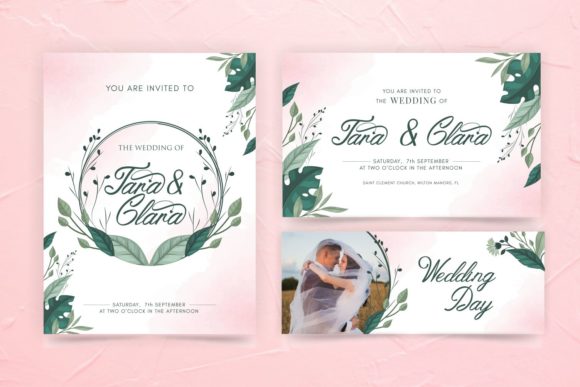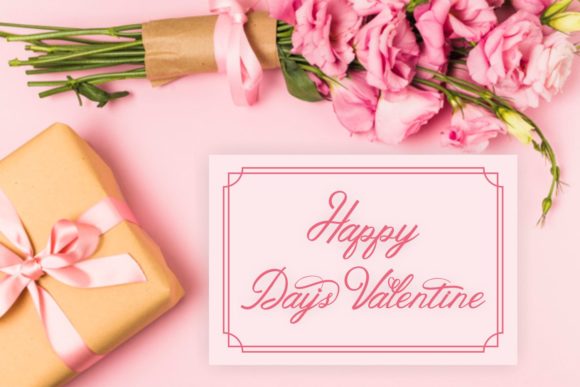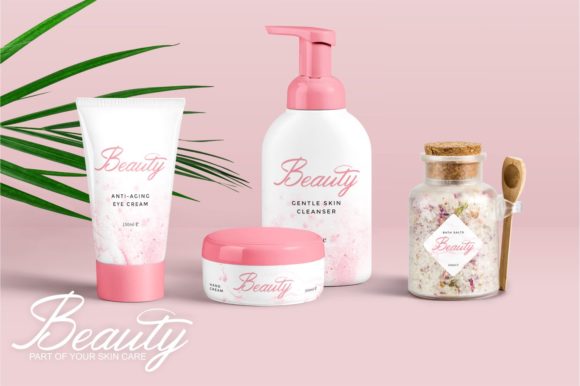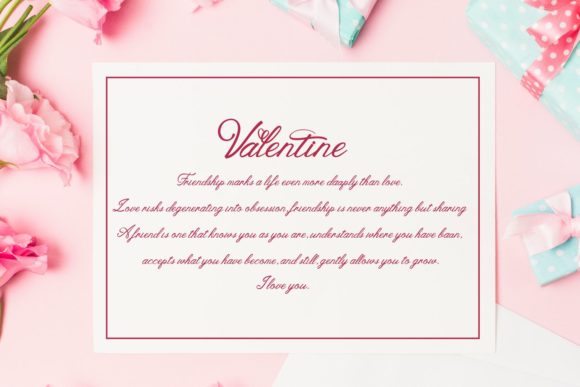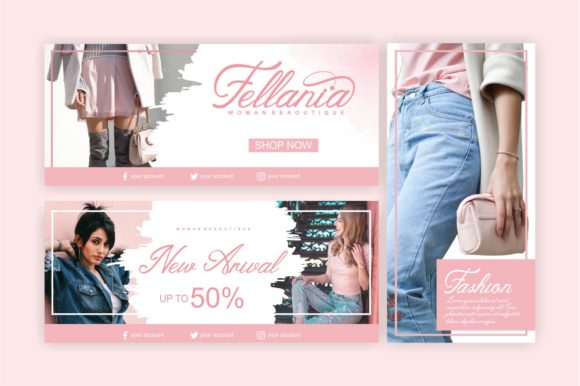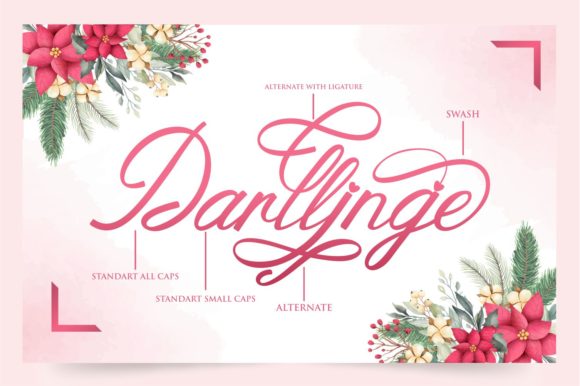
Discover the Charm of Darllinge Font: A Modern Calligraphy Marvel
Are you on the hunt for a font that adds a touch of elegance and playfulness to your designs? Look no further than Darllinge Font! This modern calligraphy font is making waves in the design community, and for good reason. Its unique blend of sophistication and whimsy makes it perfect for a variety of projects, from wedding invitations to branding materials. In this article, we’ll dive into the world of Darllinge Font, exploring its features, uses, and what makes it so special.
What is Darllinge Font?
Darllinge Font is a modern calligraphy font that boasts a fresh and contemporary look. Its flowing lines, delicate strokes, and intricate details make it a standout in the world of typography. This font is designed to evoke a sense of romance and luxury, making it ideal for designs that require a touch of sophistication. Whether you’re working on a wedding invitation, a logo, or a social media graphic, Darllinge Font is sure to impress.
The Playful Look & Feel of Darllinge Font
One of the things that sets Darllinge Font apart from other calligraphy fonts is its playful look and feel. While it’s certainly elegant and refined, it also has a lighthearted and whimsical quality that makes it perfect for designs that require a bit of personality. The font’s flowing lines and delicate strokes give it a sense of movement and energy, making it ideal for designs that need to capture the viewer’s attention.
Features of Darllinge Font
So, what makes Darllinge Font so special? Here are just a few of its key features:
- Modern calligraphy style: Darllinge Font boasts a fresh and contemporary look that’s perfect for modern designs.
- Playful look and feel: The font’s flowing lines and delicate strokes give it a lighthearted and whimsical quality.
- Elegant and refined: Despite its playful nature, Darllinge Font is also sophisticated and luxurious, making it perfect for high-end designs.
- Versatile: This font can be used for a wide range of projects, from wedding invitations to branding materials.
Uses for Darllinge Font
So, what can you use Darllinge Font for? The possibilities are endless! Here are a few ideas to get you started:
- Wedding invitations: Darllinge Font is perfect for wedding invitations, adding a touch of romance and luxury to your designs.
- Branding materials: This font is ideal for branding materials, such as logos, business cards, and letterheads.
- Social media graphics: Darllinge Font can add a touch of elegance and sophistication to your social media graphics.
- Stationery: This font is perfect for designing stationery, such as notebooks, journals, and greeting cards.
Tips for Using Darllinge Font
Here are a few tips for getting the most out of Darllinge Font:
- Use it sparingly: Darllinge Font is a statement font, so use it sparingly to add emphasis to your designs.
- Experiment with colors: This font looks great in a variety of colors, so don’t be afraid to experiment and find the perfect hue for your design.
- Pair it with other fonts: Darllinge Font pairs well with a variety of other fonts, so try combining it with other typography to create a unique look.
In conclusion, Darllinge Font is a modern calligraphy marvel that’s perfect for designers and crafters looking to add a touch of elegance and playfulness to their designs. Its unique blend of sophistication and whimsy makes it versatile and ideal for a wide range of projects. Whether you’re working on a wedding invitation, a logo, or a social media graphic, Darllinge Font is sure to impress. So why not give it a try and see the magic for yourself?